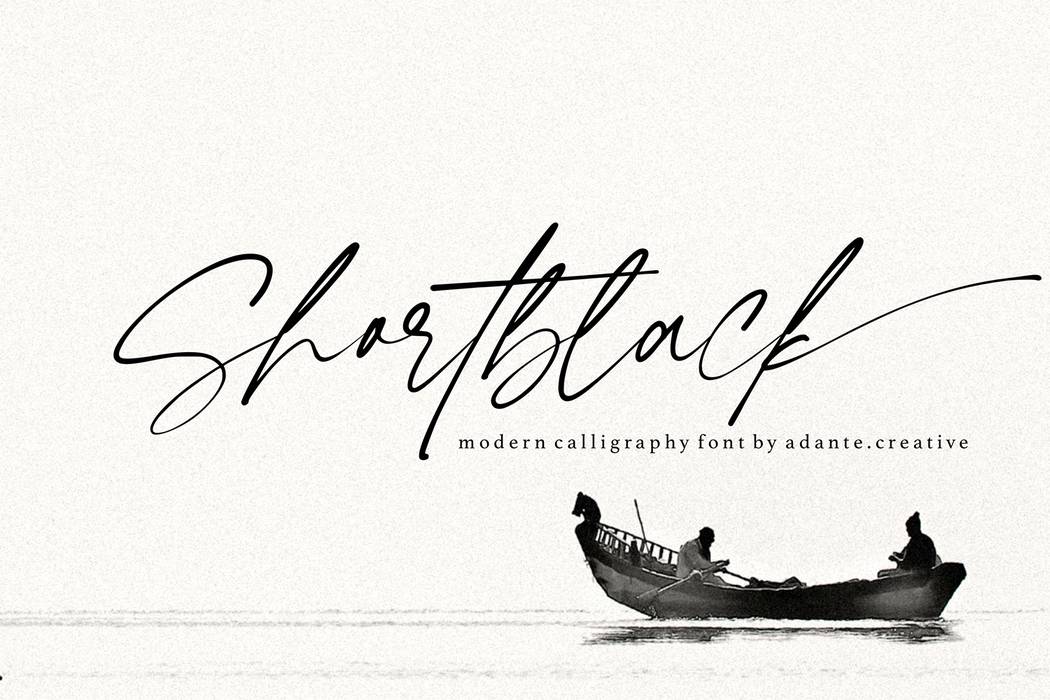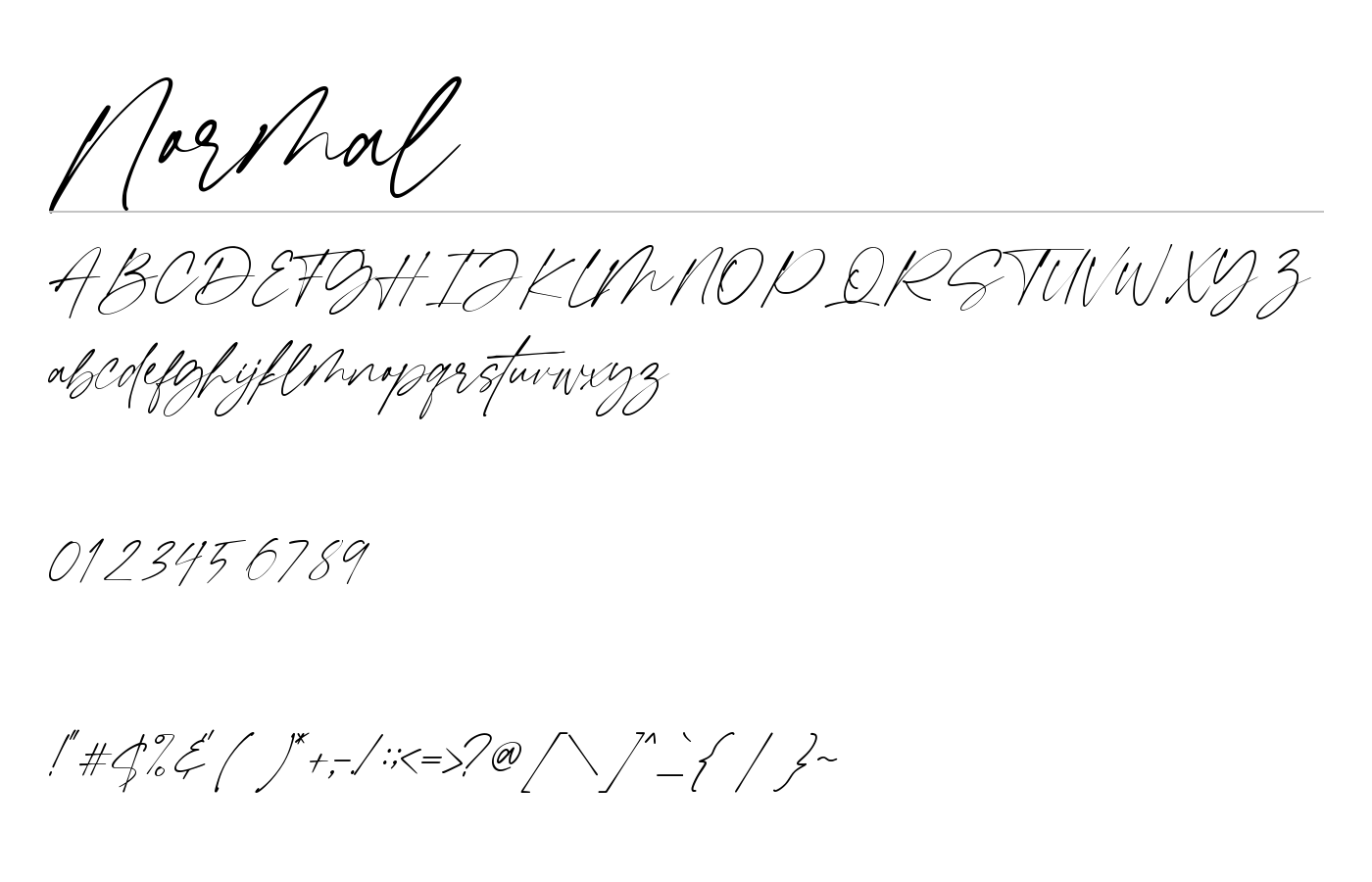
Shortblack Font is a delicate, handwritten script with a light, airy feel created by its thin strokes and elegant, flowing letterforms. Its casual yet refined style, featuring tall ascenders and subtle curves, lends a personal and sophisticated touch ideal for invites, branding, and editorial use where a modern, stylish look is desired. This font works beautifully in creative and feminine contexts, adding charm and personality without overwhelming the design.
Shortblack Font
About Shortblack Font
| Font family | Shortblack Font |
| Designer | Adante.Creative |